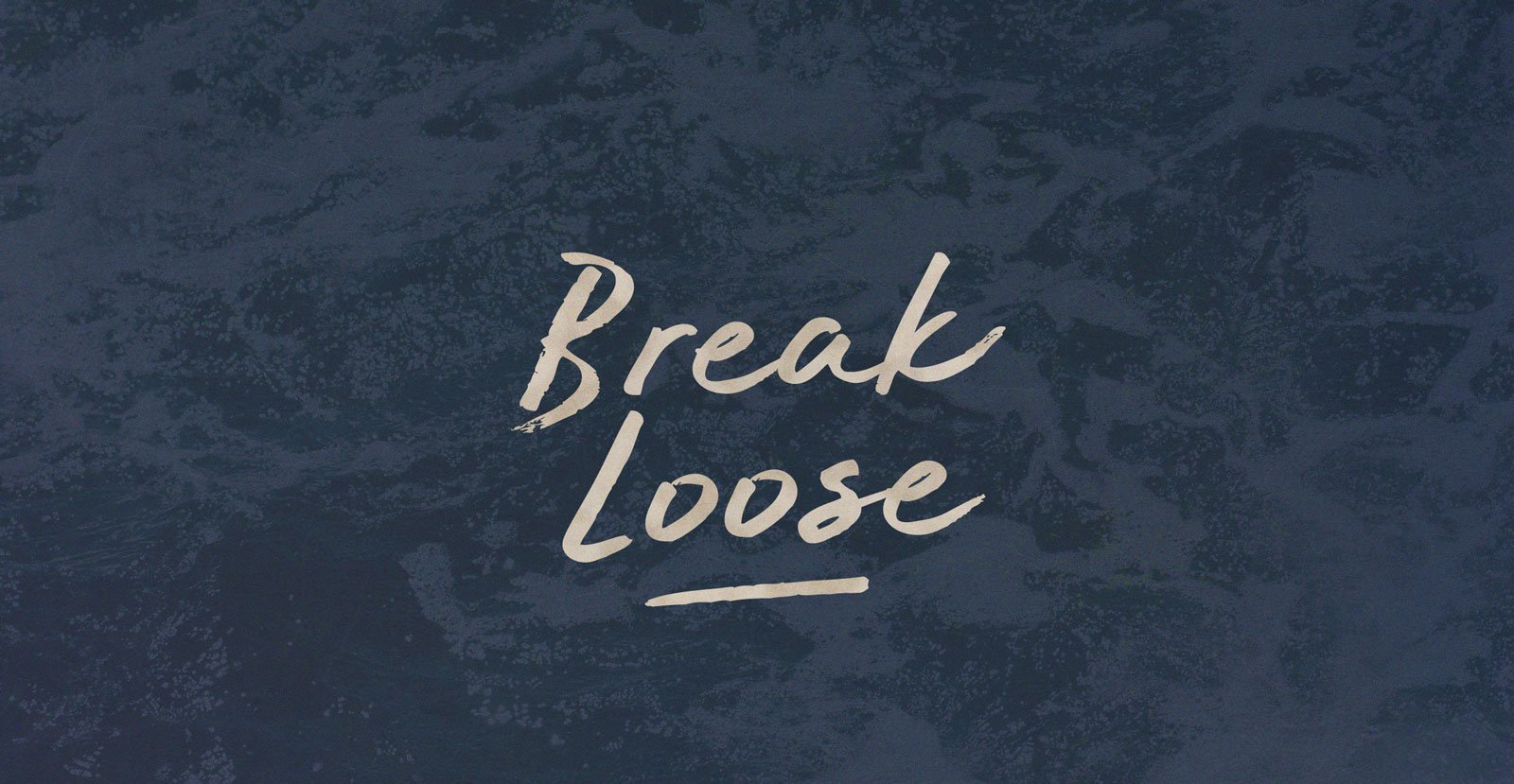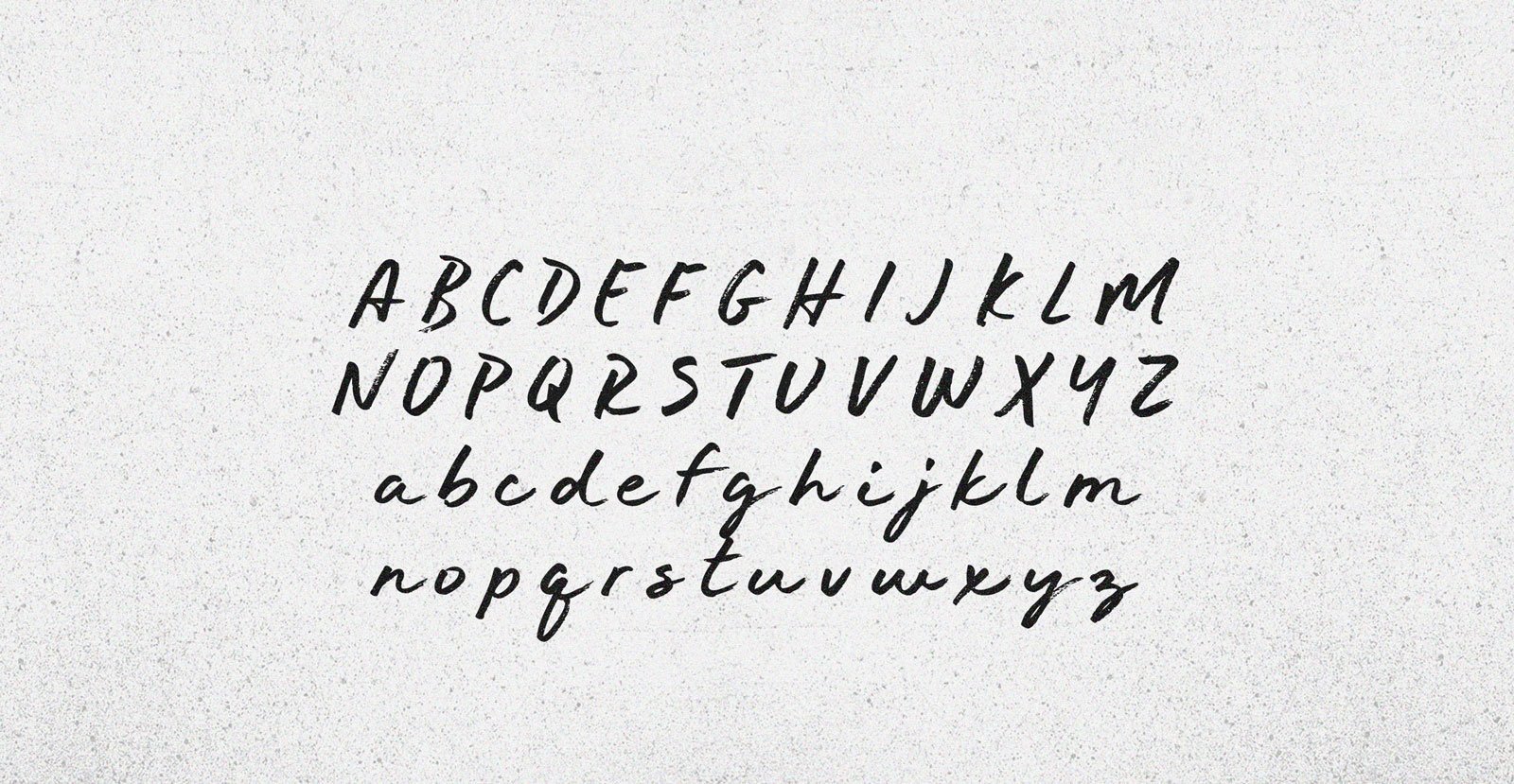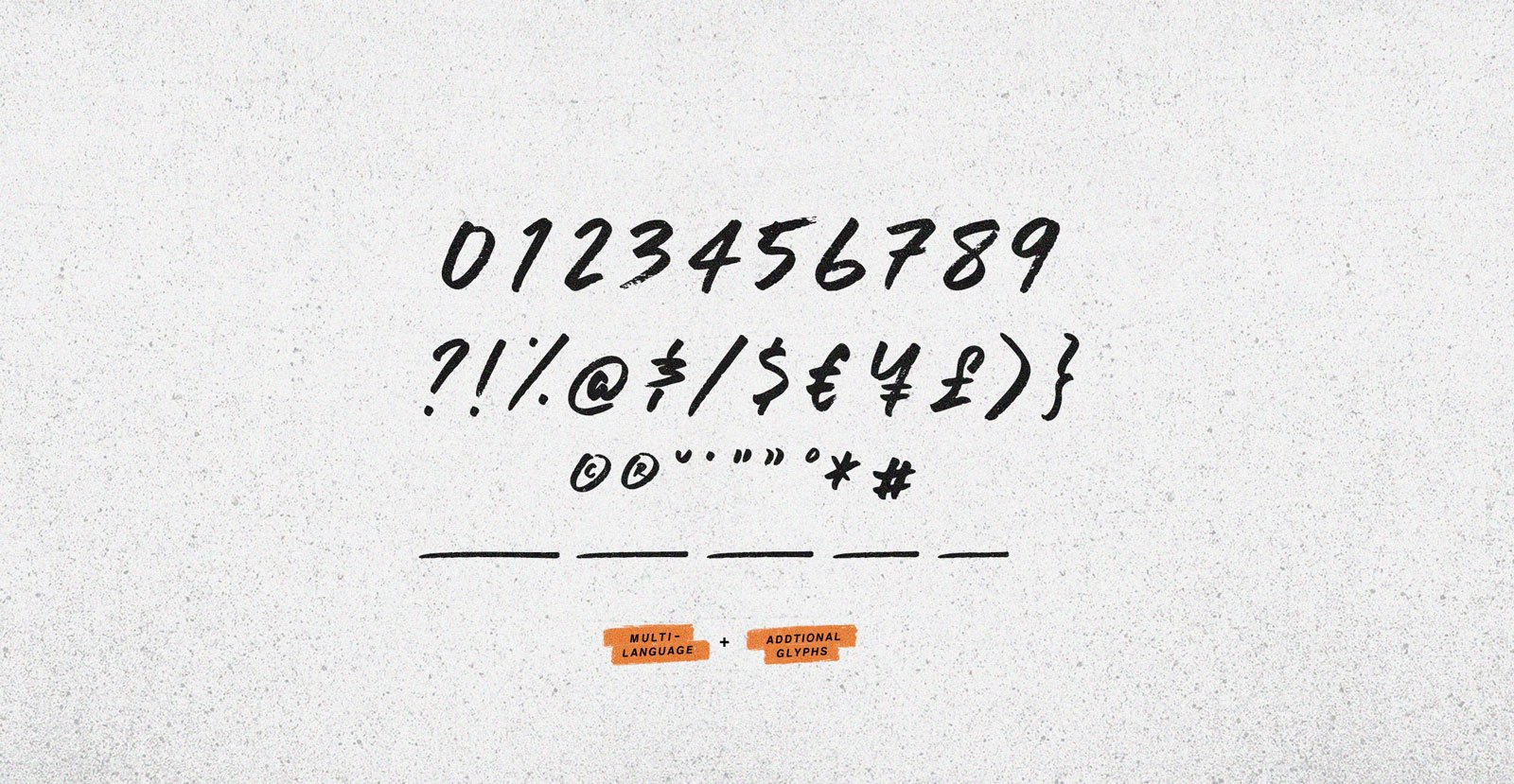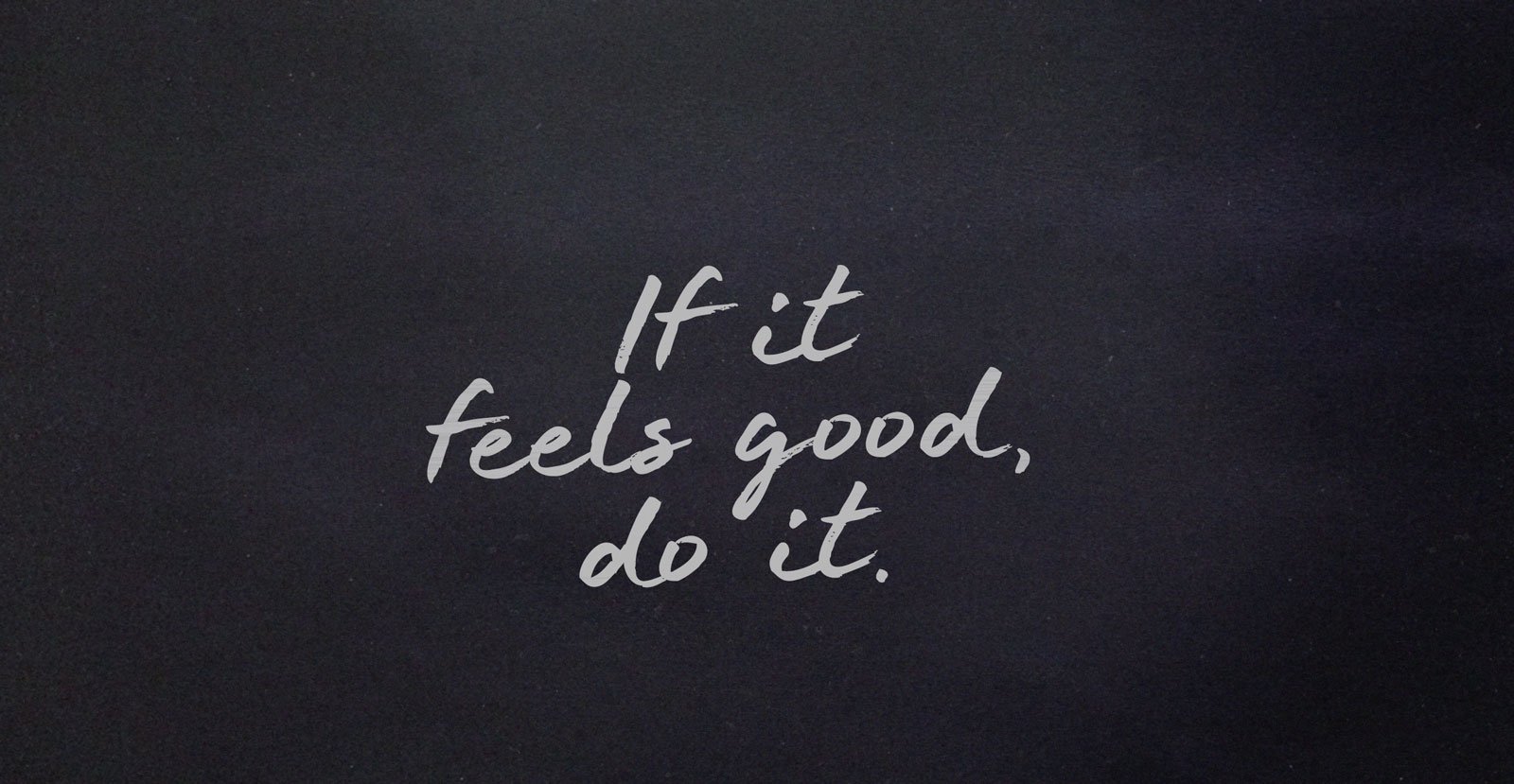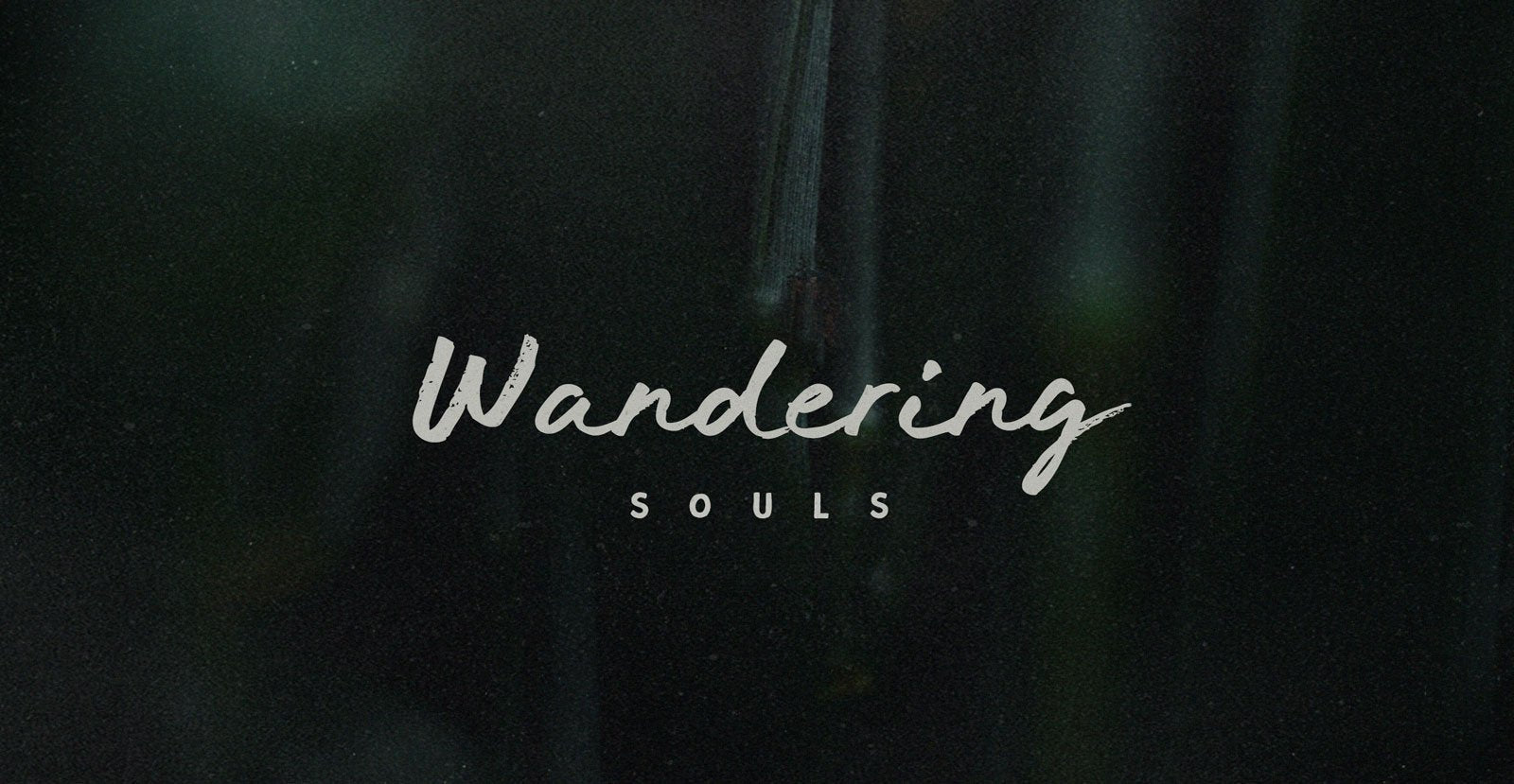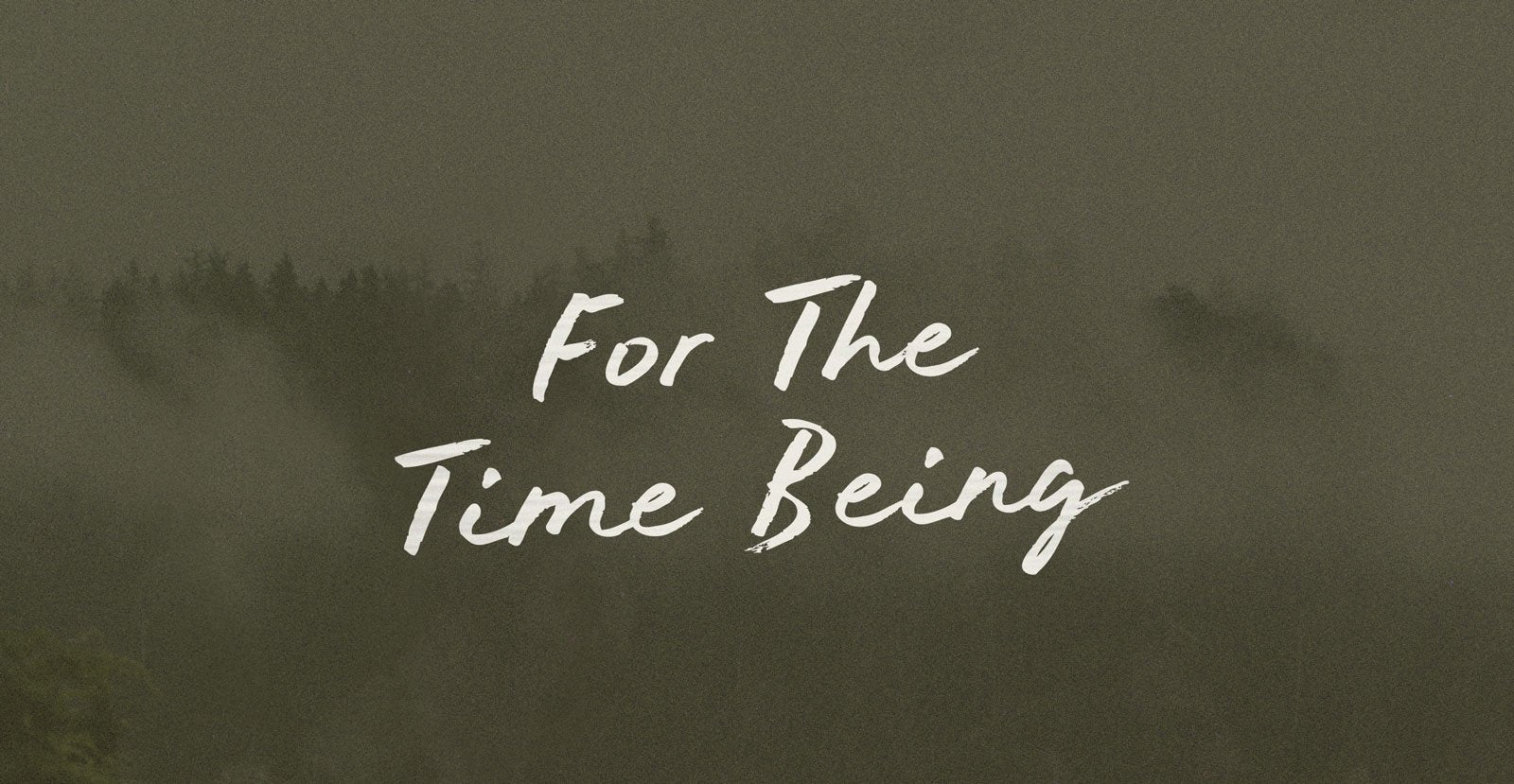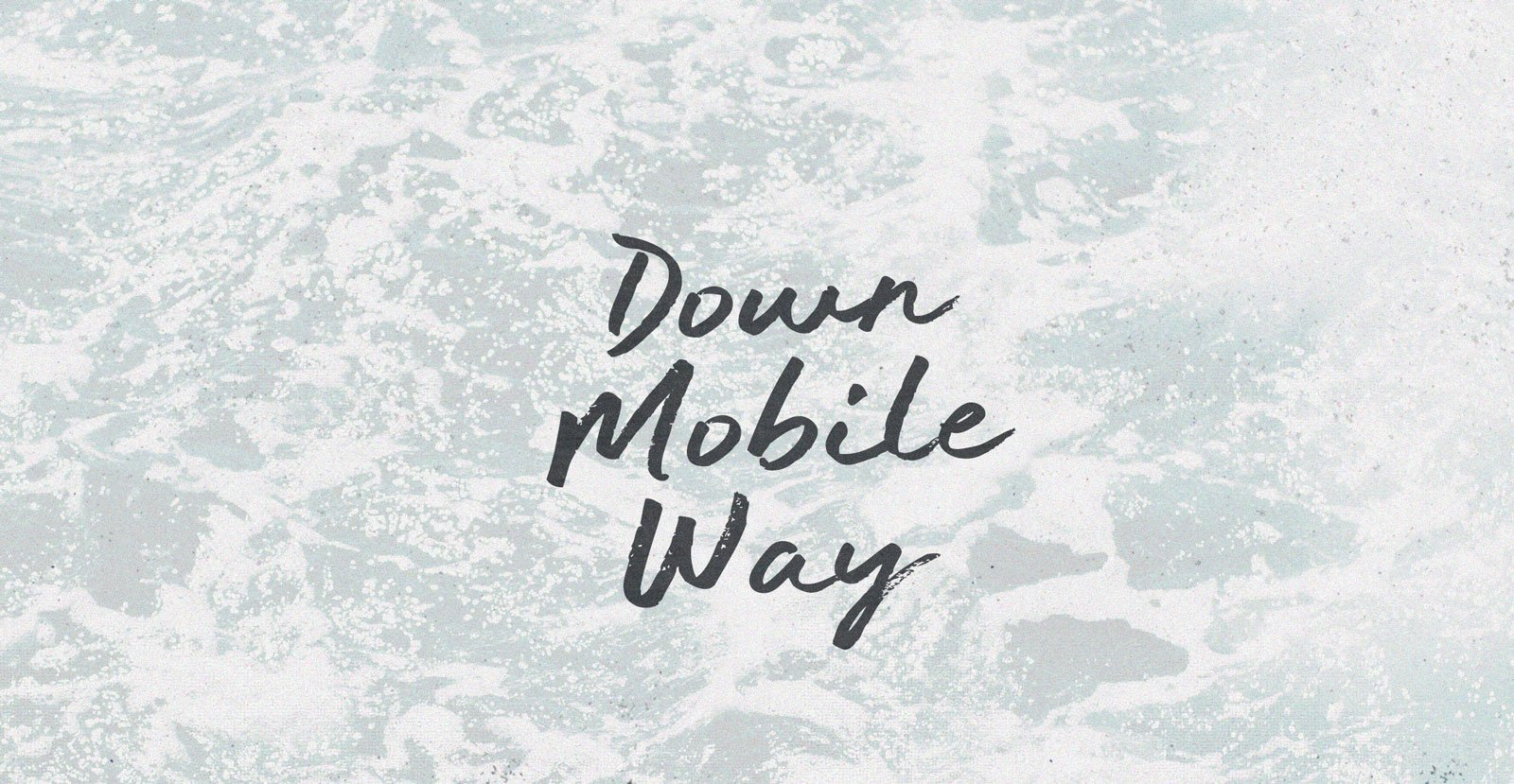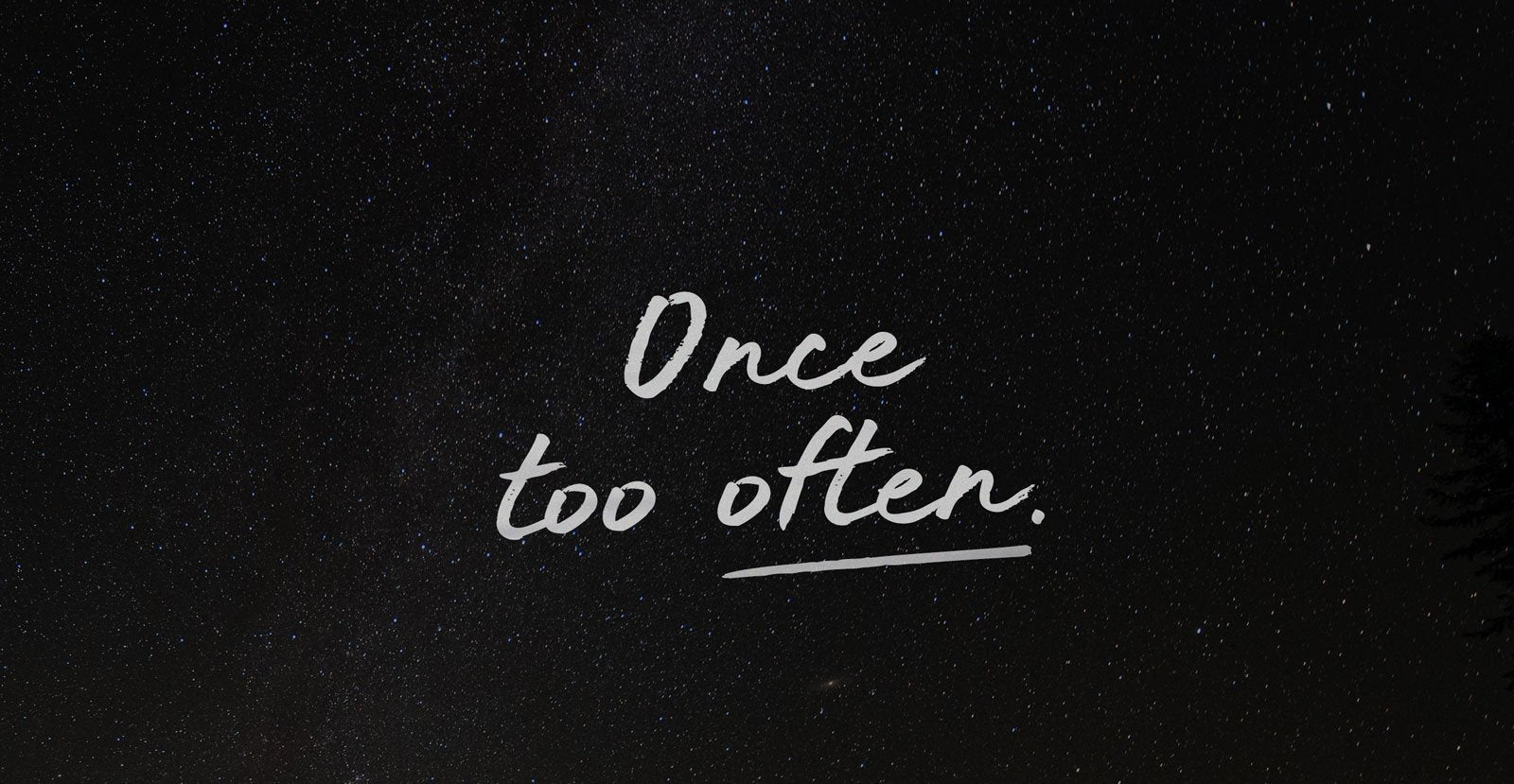
Break Loose
The thrilling conclusion to the dance revolution: from Crotona to Crispus Attucks, juggling tight breaks to let the people Break Loose, free music brings it back, emancipated like the funkiest parts of the funkiest tracks.